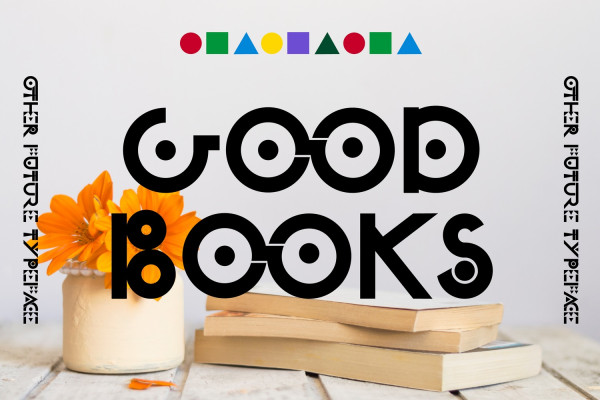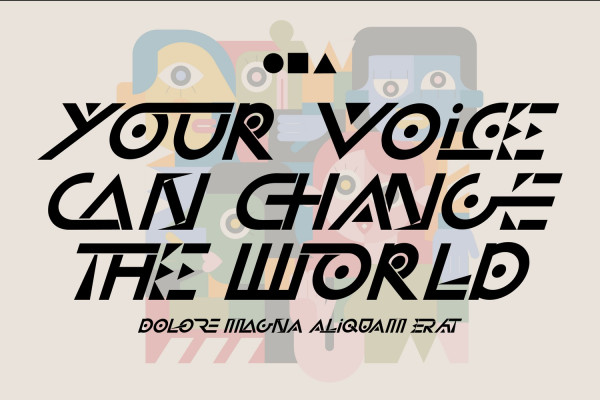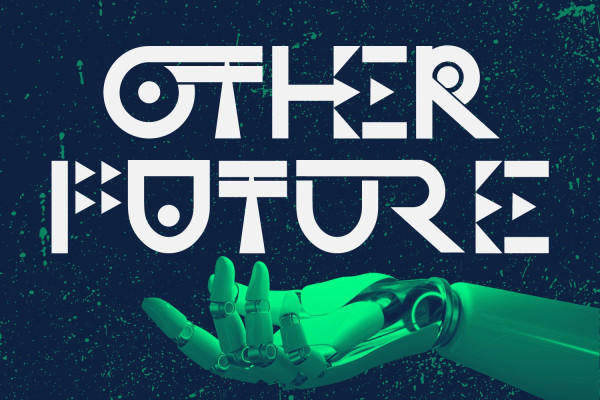
Other Future Font
Other Future Font – Futuristic Font is a modern font that draws inspiration from future cyberspace with spaceage technology geometric shapes, creating a striking visual style perfect for sci-fi, technology, and game designs. Suitable for magazine titles, posters, brochures, movie titles, instagram posts, youtube thumbnails, youtube titles, shop names, company names, business cards, packaging, products and more.
Other Future was built with OpenType features and includes 100 ligatures, alternate, numbers, punctuation, and it also supports other languages.